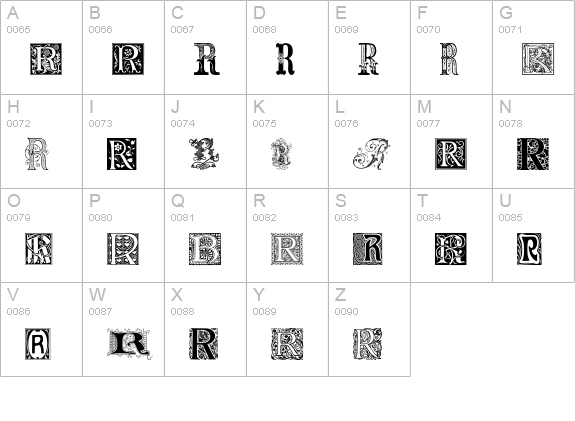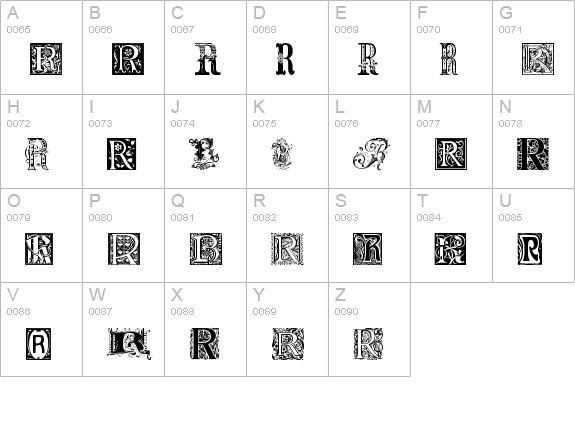
Ornamental Initials R Font Details
Ornamental Initials R font is a stunning display typeface with intricate and ornate designs perfect for adding a touch of elegance to your projects. Each letter is beautifully crafted with fine details and flourishes, making it ideal for use in headlines, invitations, and other decorative applications. The ornamental initials in this font exude a sense of sophistication and style, making them a standout choice for any design that calls for a touch of refinement. And the best part? Ornamental Initials R font is available for free download at FontsMarket.com! Simply head over to the website and start using this exquisite font in your projects today. Don't miss out on the opportunity to add a touch of luxury to your designs with Ornamental Initials R font.